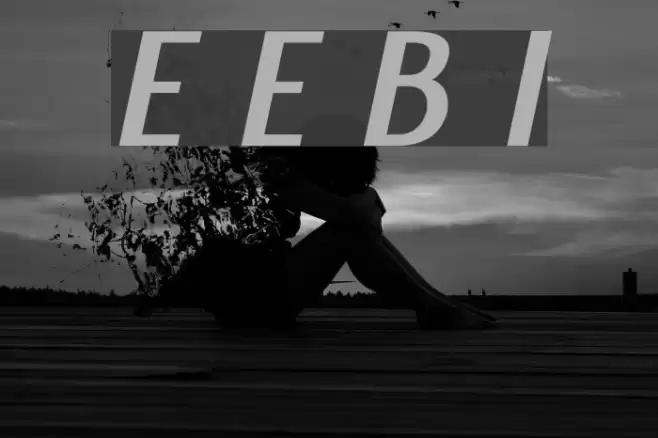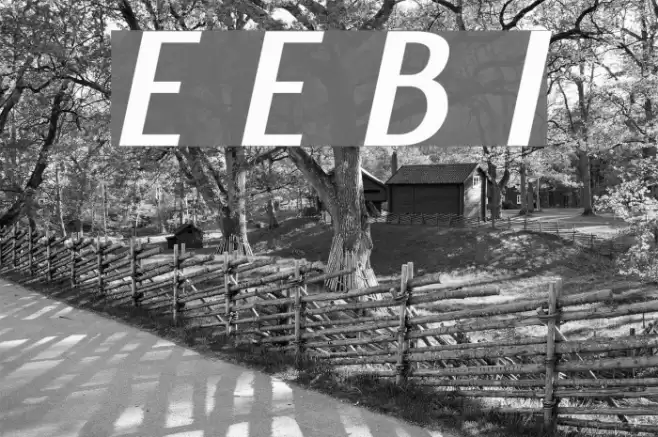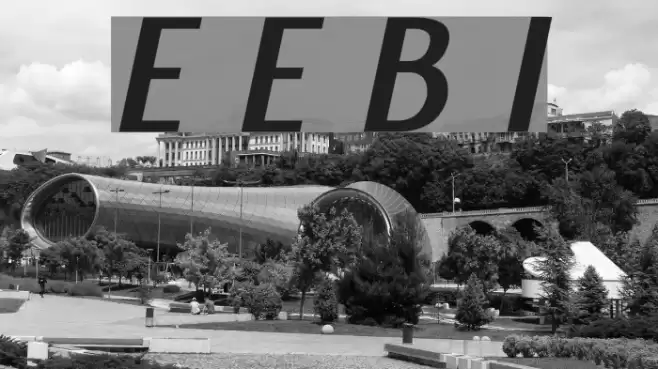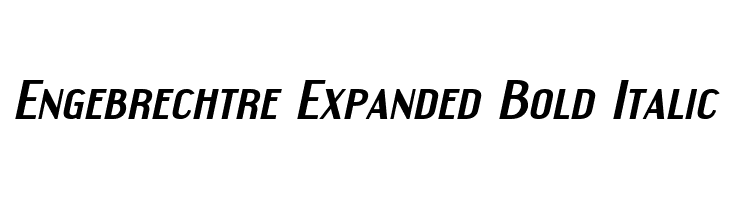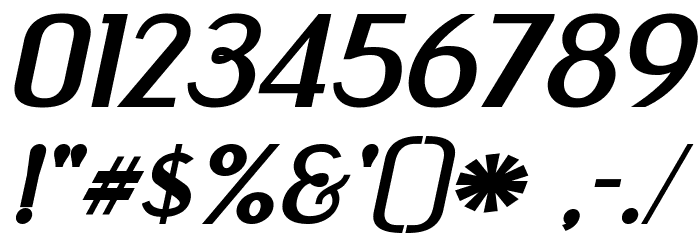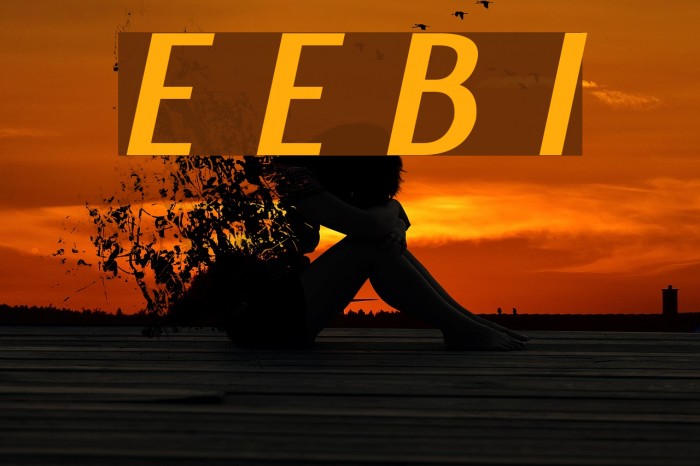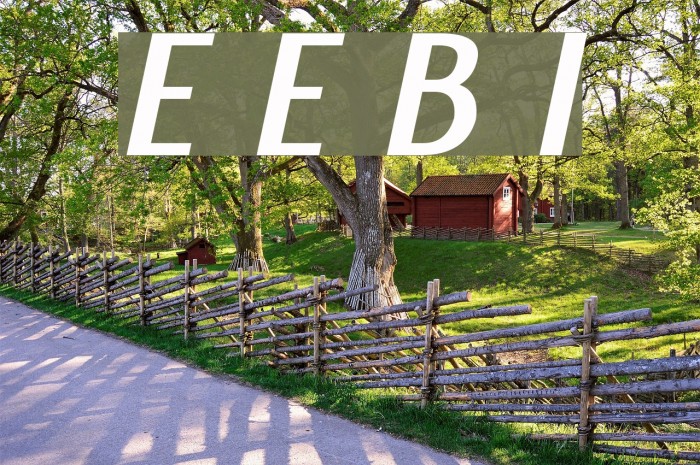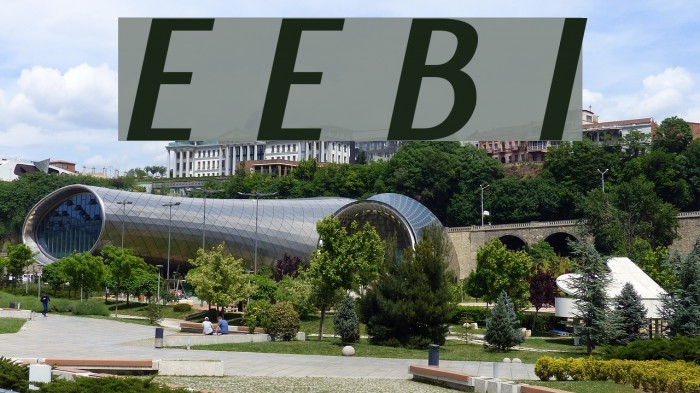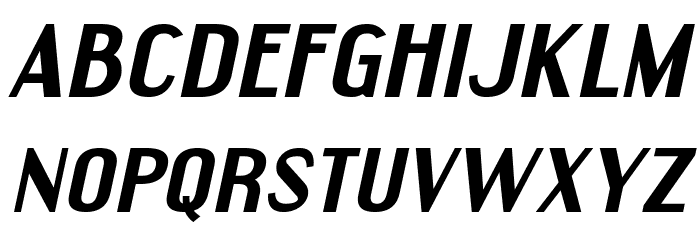
Engebrechtre Expanded Bold Italic Font
Engebrechtre Expanded Bold Italic Description
This font features a bold and italicized style with an expanded width, giving it a strong and dynamic presence. The characters are designed with a modern aesthetic, characterized by clean lines and a slight slant that adds a sense of motion and energy. The uppercase and lowercase letters maintain a consistent style, with a uniform stroke weight that enhances readability. The numerals and special characters are crafted to match the overall design, ensuring a cohesive look across all text elements. This font is ideal for making a bold statement in various design projects.
A bold, italicized, and expanded font with a modern and dynamic style from Formal fonts.